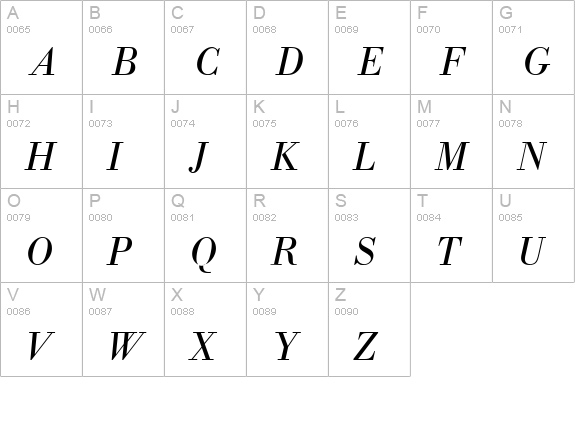
Bodoni BE Light Italic Oldstyle Figures Font Details
Bodoni BE Light Italic Oldstyle Figures is a refined, elegant, italic variant in the Bodoni typeface family \xE2\x80\x94 well suited to elegant body text, refined sub-headings, and luxury branding.
Bodoni BE Light Italic Oldstyle Figures font exudes elegance and sophistication with its graceful and refined design. The delicate curves and slanted angles of this typeface create a sense of movement and fluidity, making it perfect for adding a touch of sophistication to any project. The oldstyle figures add a classic and timeless feel to the overall aesthetic, making it a versatile choice for various design applications. What sets Bodoni BE Light Italic Oldstyle Figures font apart is that it is not only beautifully crafted but also freely available to download at FontsMarket.com. This means that you can easily access and use this exquisite font in your projects without any cost, allowing you to elevate your designs without breaking the bank. Whether you're working on a branding project, editorial layout, or any other creative endeavor, Bodoni BE Light Italic Oldstyle Figures font is sure to bring a touch of sophistication and style to your work.